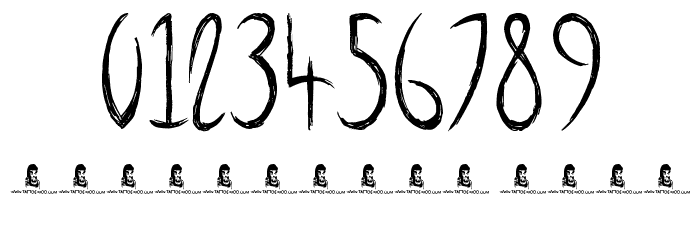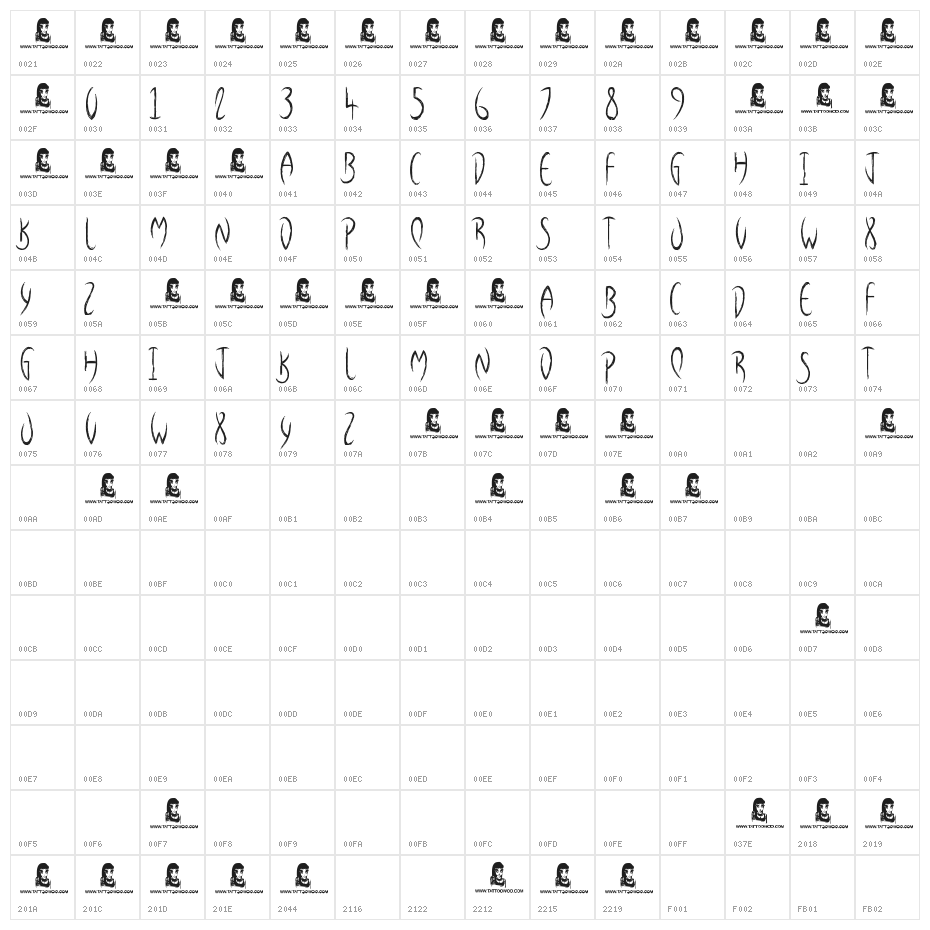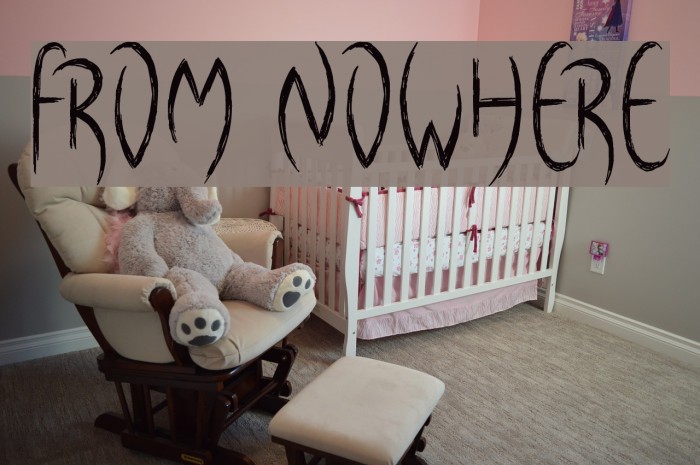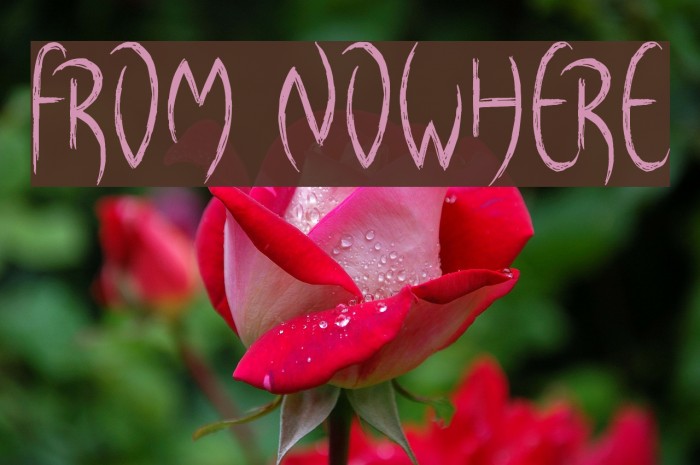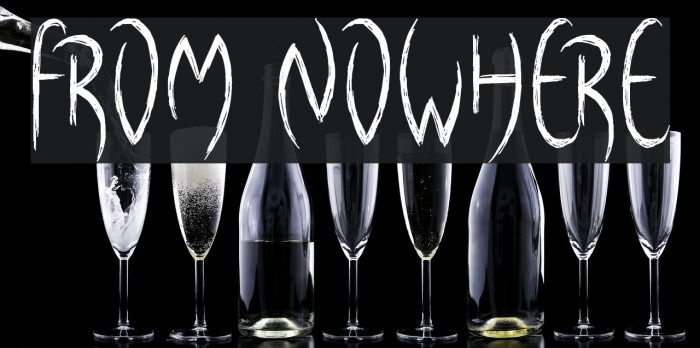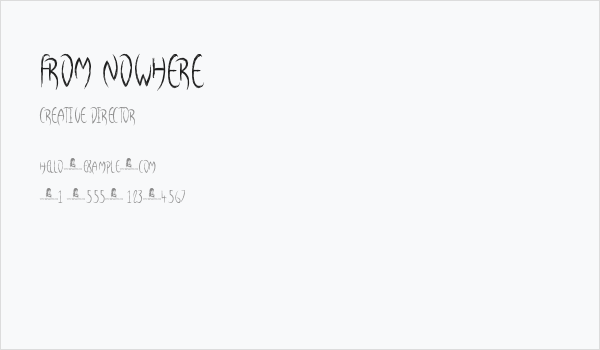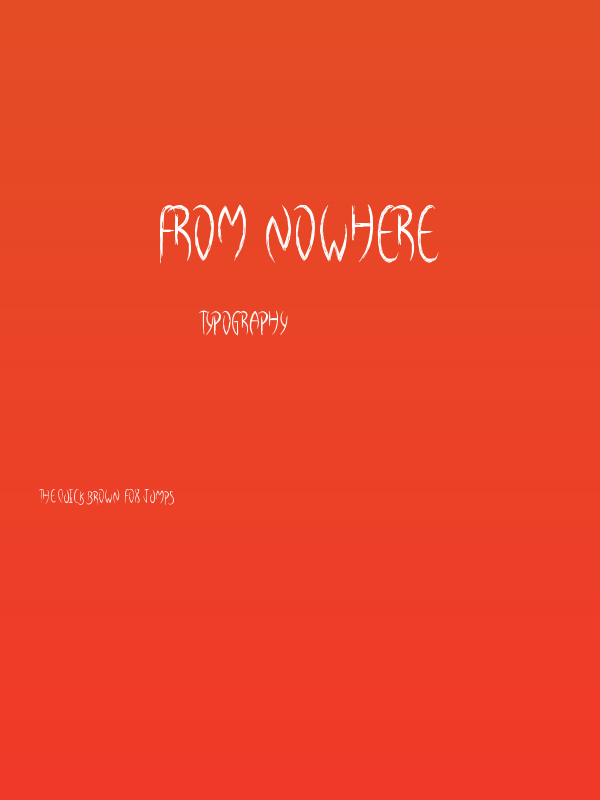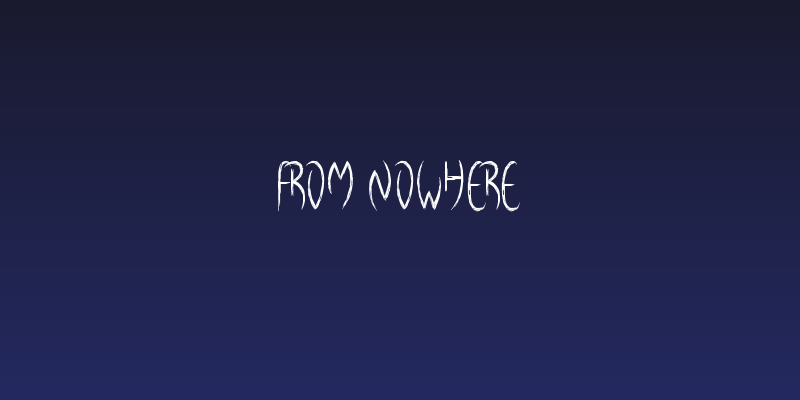
From Nowhere Font
From Nowhere Description
This font features a bold and expressive style, characterized by its brush-like strokes and dynamic curves. The letters have a hand-drawn appearance, with varying thickness that adds a sense of movement and energy. The uppercase and lowercase letters maintain a consistent style, with elongated forms and sharp edges that create a dramatic effect. The numbers and special characters follow the same artistic approach, ensuring a cohesive look across all elements. This font's unique style makes it stand out, offering a creative and artistic flair.
| Overall Style | Artistic, Expressive |
| Proposed Projects | Ideal for artistic projects, branding, posters, and any design requiring a bold, expressive touch. |